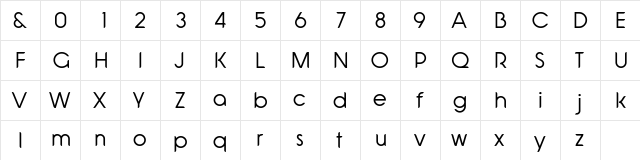
Shadeerah Demo Regular
| Foundry | Belfont |
| Designer | Ashran |
Design Context for Shadeerah Demo Typeface
Shadeerah Demo offers clean, dependable letterforms without strong stylistic allegiance, making it a practical choice for designers who need flexibility.
Pro Tip: Use Shadeerah Demo in both headline and body roles to test its range before committing to a single application.